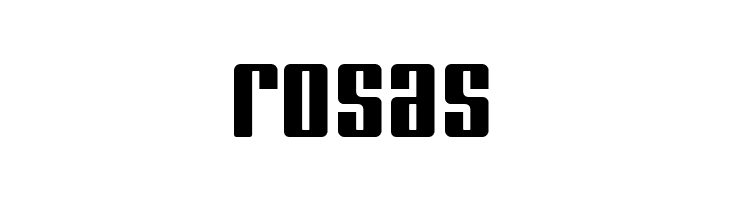
Destanyd Regular Font
- Font: Destanyd Regular
( Fonts by Flava Fonts - Leigh Taylor )
A bold, geometric font with a modern and structured appearance.